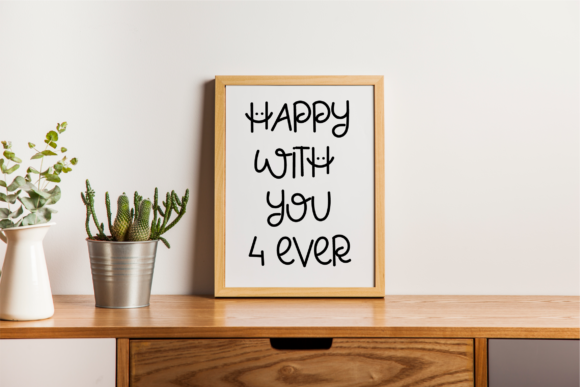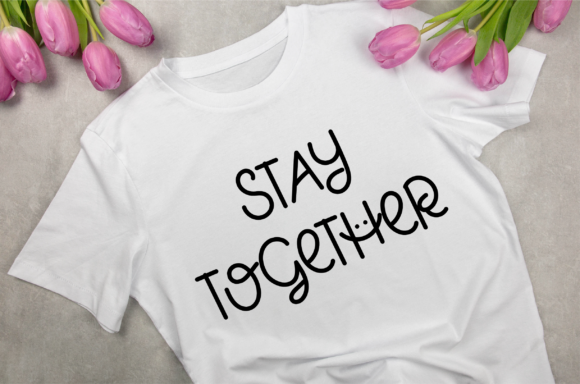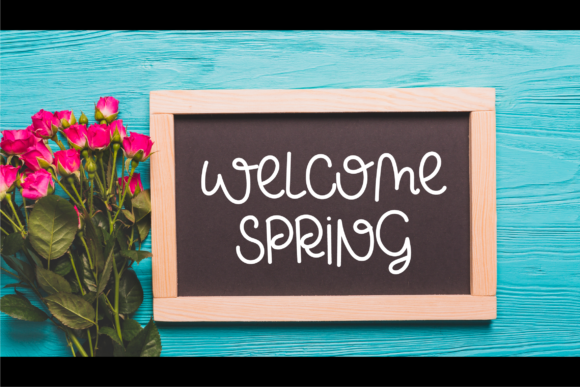
About Hi Feeling Font
“Hi Feeling” is a cute and quirky handwritten font that brings a sense of playfulness and liveliness to your designs. With its thin letterforms and charming style, this font adds a delightful touch to any project.
The uniqueness of “Hi Feeling” lies in its thin and delicate lettering, which gives it a light and airy feel. The quirky design elements add a sense of fun and personality, making it a perfect choice for projects that require a touch of whimsy.
The sweet and full-of-life style of “Hi Feeling” makes it ideal for brightening up your designs. Whether you’re creating greeting cards, invitations, logos, or any other creative project, this font injects a sense of joy and positivity.
The versatility of “Hi Feeling” allows it to be used in various contexts. It can be a great fit for children’s books, playful branding, social media graphics, and more. Its lively and expressive characters make each word and phrase stand out, creating a visually appealing and engaging design.
Incorporating “Hi Feeling” into your designs is easy and effortless. The thin letterforms give it a light and airy appearance, making it highly readable even at smaller sizes. The font’s quirky style and unique design elements add an element of surprise and delight to your typography.
Whether you’re using “Hi Feeling” as a headline font or as an accent in combination with other typefaces, it brings a cheerful and charming vibe to your designs. Consider pairing it with complementary fonts to create a balanced and cohesive visual composition.
Embrace the cute and quirky nature of “Hi Feeling” and let it brighten up your designs with its playful and lively style. Whether you’re working on personal projects or professional designs, this font adds a touch of sweetness and liveliness that will captivate your audience.